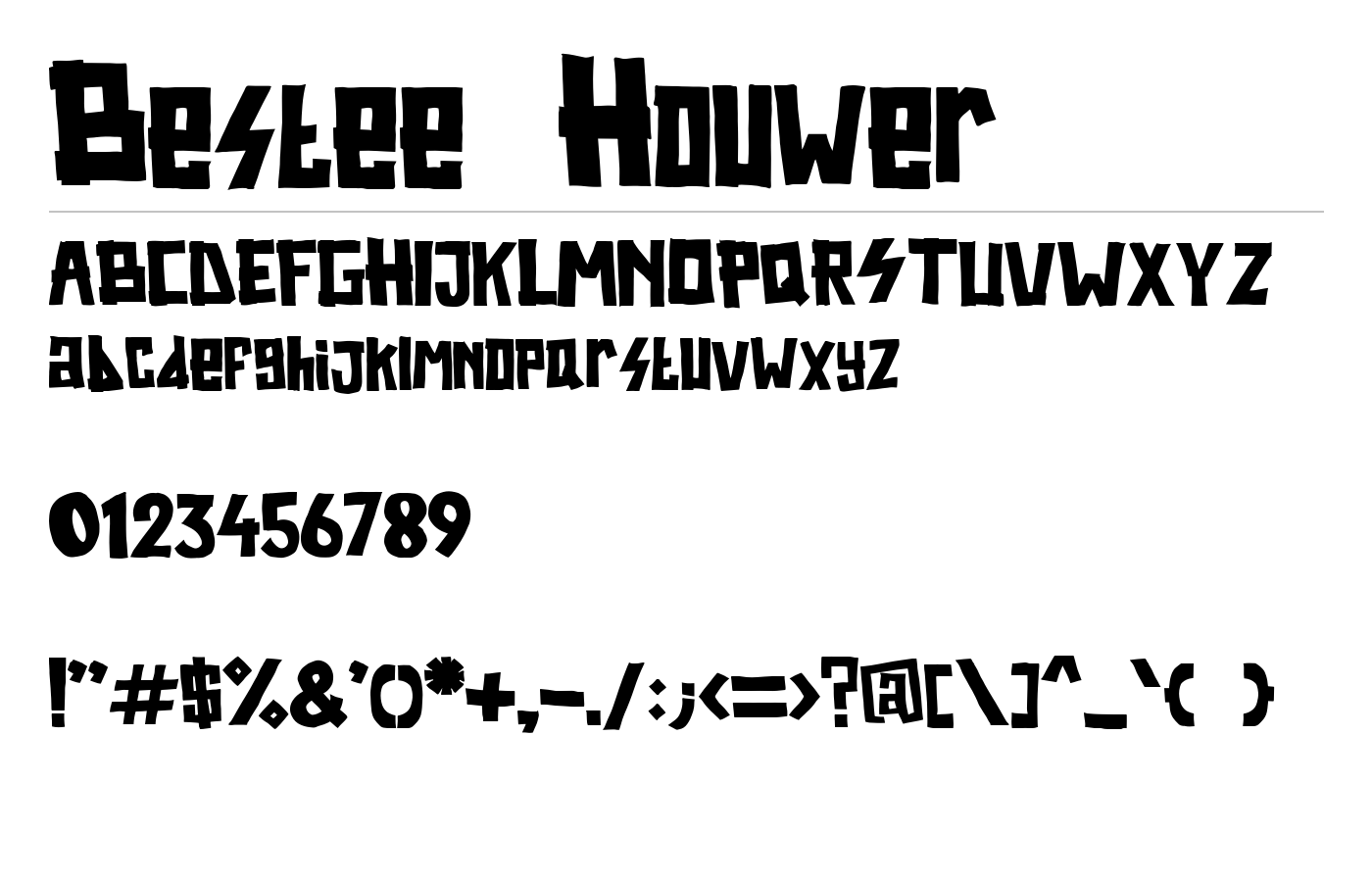
Bestee Houwer is a bold, playful display font characterized by its chunky, irregular letterforms and energetic zigzag accents, giving it a dynamic, informal feel. With its strong presence and quirky style, it works best for eye-catching headlines, posters, and creative branding where a fun, edgy personality is desired. This font is ideal for projects that want to stand out and convey a lively, unconventional vibe.
Bestee Houwer Font
About Bestee Houwer Font